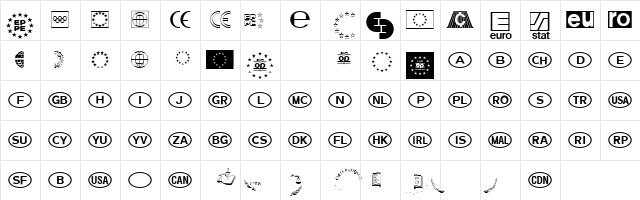
EEC LH Pi Regular
Design Context for EEC LH Pi
EEC LH Pi is a composed and adaptable typeface that performs quietly and consistently across a wide range of design contexts.